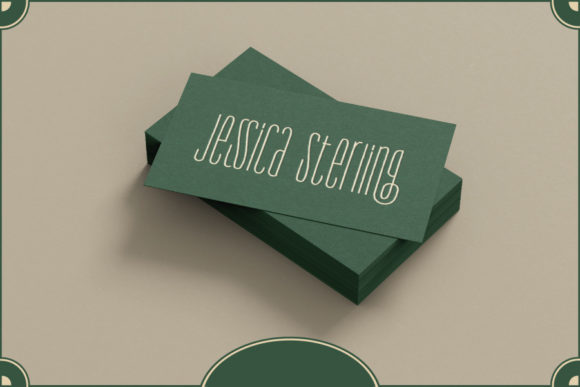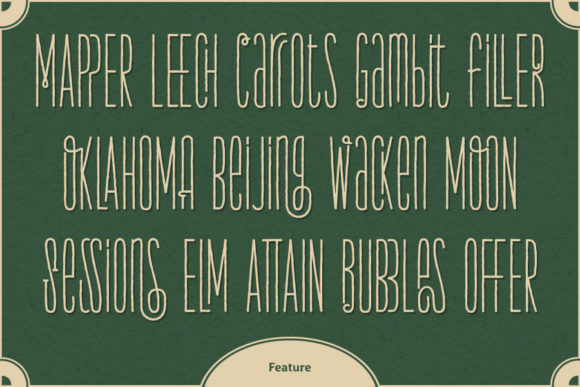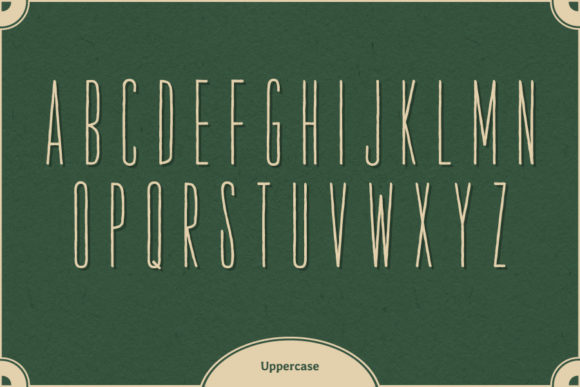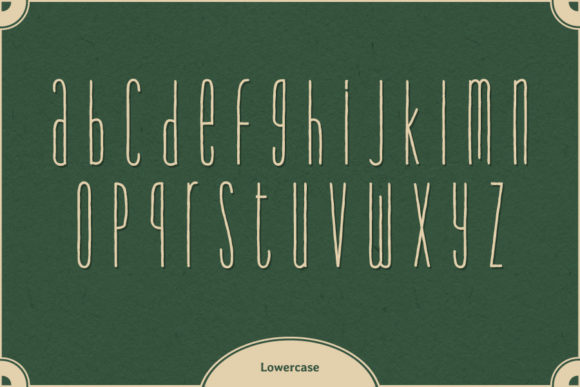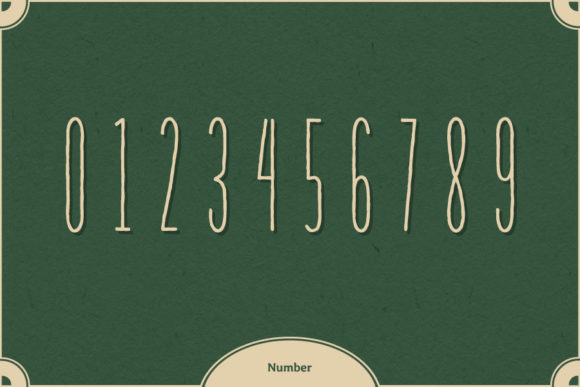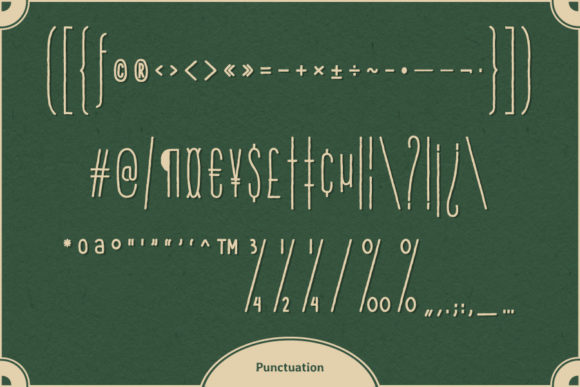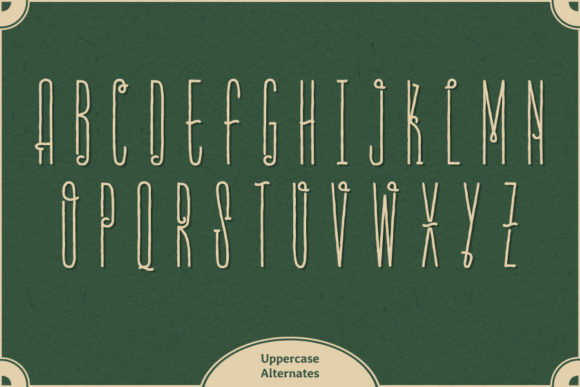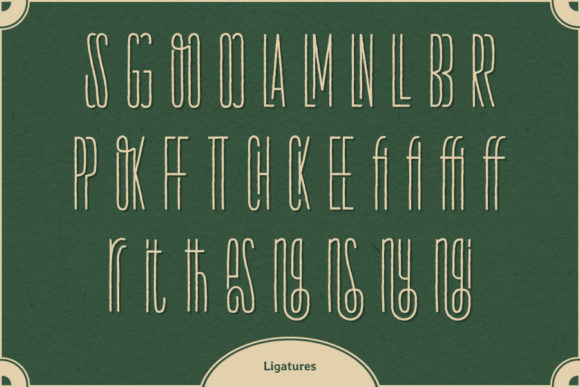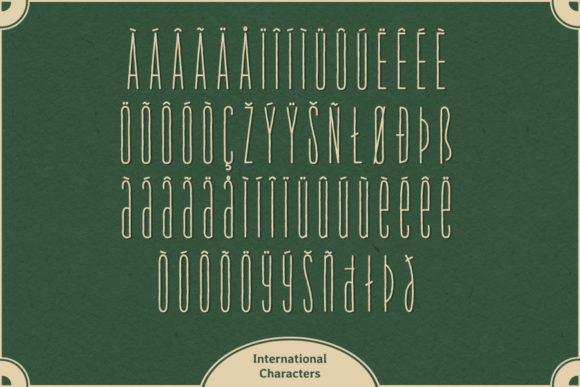
Nestophian Font
About Nestophian Font
Nestophian is a thin and simple looking handwritten font, that can be used for all chalkboard quotes or teaching material! Its authentic look will add a personal and realistic feel to your designs.